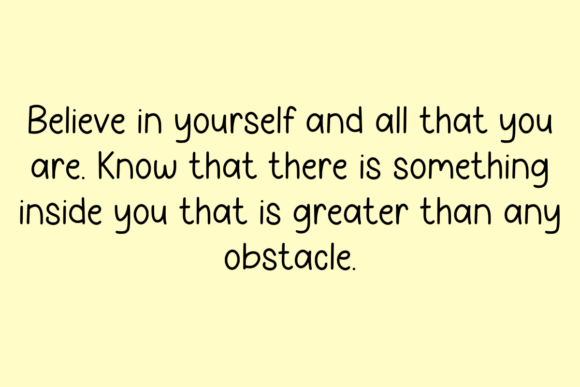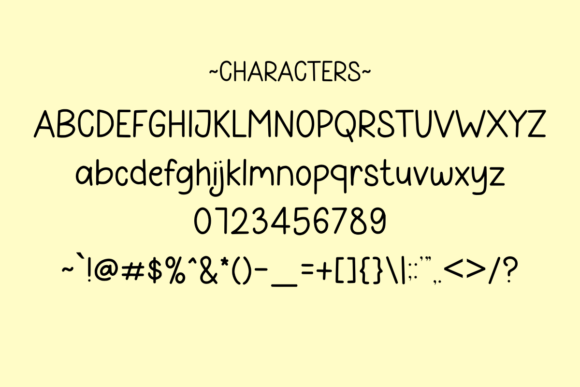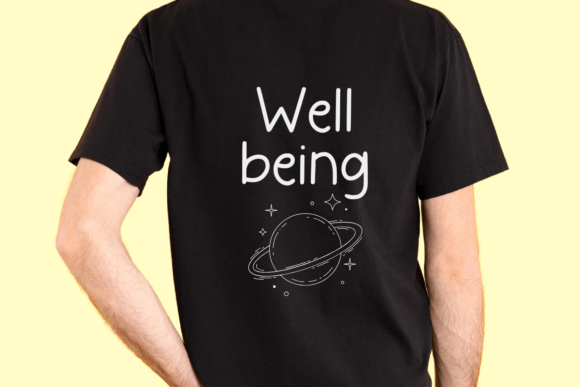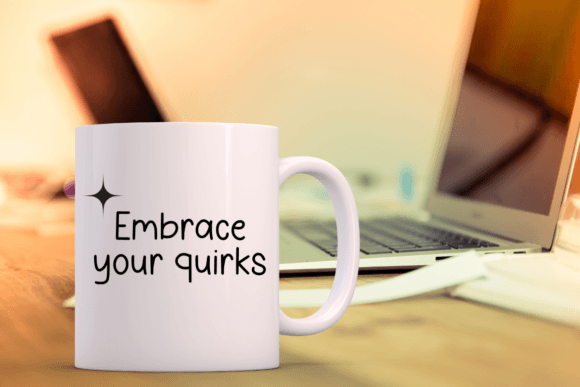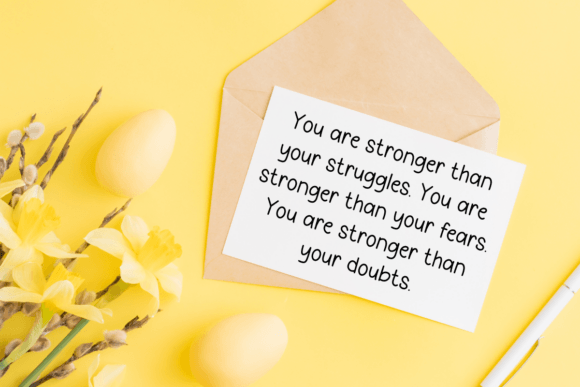
Introduction to Merry Twigs Font
Have you ever found yourself scrolling through your social media feed, stumbling upon a beautifully designed graphic that makes you stop and wonder, “How did they do that?” For many of us, it’s the little details that make a design truly shine. For me, it was a simple yet elegant logo that caught my eye, and it all came down to the choice of font. In this case, the star of the show was the Merry Twigs Font – a fun, sans serif font that added a touch of whimsy to the entire design.
As designers, we know that having access to high-quality design resources like the Merry Twigs Font can be a game-changer for our creative projects. Whether you’re working on a free download or a paid project, having a reliable font that can elevate your design is invaluable. And with its natural and unique style, the Merry Twigs Font is sure to be a valuable addition to your design arsenal.
- The font’s unique, whimsical design makes it perfect for projects that require a touch of playfulness and creativity.
- Merry Twigs Font is a versatile design resource suitable for various applications, including branding, advertising, and editorial design.
Honest Review: Merry Twigs Font
As a designer, I’m always on the lookout for high-quality fonts to enhance my creative projects. Recently, I stumbled upon the Merry Twigs Font, and I’m excited to share my honest review.
- ✨ Beautiful, whimsical design: The Merry Twigs Font is perfect for projects that require a touch of magic and wonder.
- ✨ High quality: The font is crisp and clear, making it ideal for both digital and print designs.
- ⚠️ Limited character set: While the font is beautiful, it’s not ideal for projects that require a wide range of characters and symbols.
Overall, I’m impressed with the Merry Twigs Font, and I would recommend it to designers who are looking for a unique and high-quality font for their creative projects. While it has some limitations, it’s a great resource to have in your design toolbox.
Common Use Cases for Merry Twigs Font
The Merry Twigs Font is ideal for various design projects, including:
- Creating invitations and event graphics.
- Designing social media graphics and ads.
- Creating digital products, such as ebooks and courses.